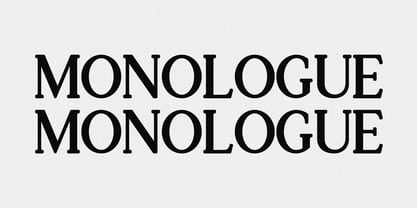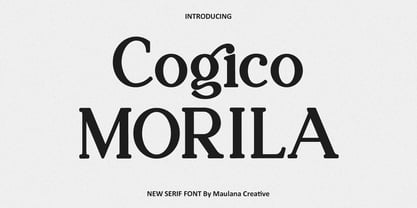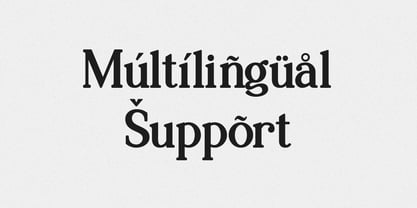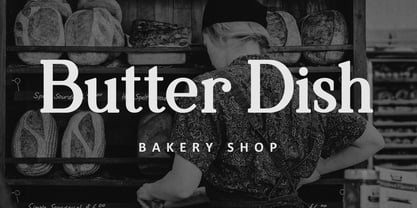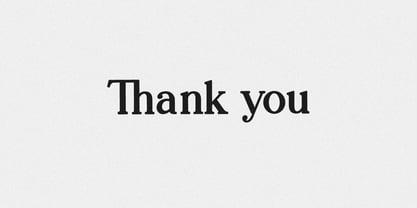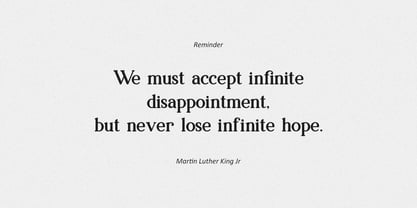
MC Cogico Morila
by Maulana Creative
The MC Cogico Morila Font Family was designed by Gilang Maulana and published by Maulana Creative. MC Cogico Morila contains 1 styles. More about this family
Introduce your brand to the world with Cogico Morila, a stunning new serif typeface. This font embodies a perfect blend of classic elegance and modern sophistication, making it an essential asset for designers seeking a powerful and refined aesthetic. Cogico Morila features strong, confident serifs, high contrast, and a balanced structure that commands attention. Its distinctive letterforms and subtle humanist touches give it a unique personality that is both authoritative and approachable.
Designers: Gilang Maulana
Foundry: Maulana Creative